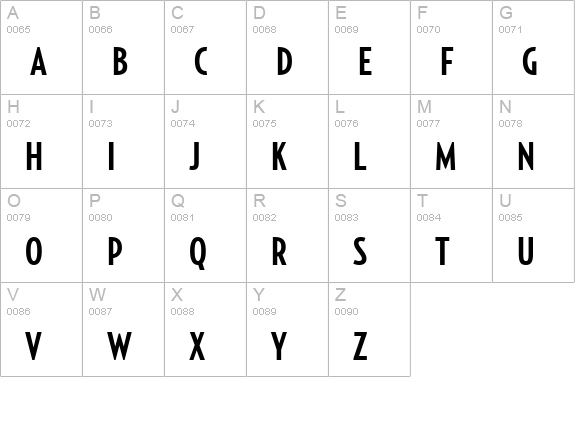
RelayComp-Bold Font Details
RelayComp-Bold is a strong, high-contrast variant in the RelayComp typeface family \xE2\x80\x94 well suited to headlines, attention-grabbing titles, and strong calls-to-action.
RelayComp-Bold font is a captivating and bold typeface that commands attention with its strong and confident letterforms. Designed with precision and elegance, this font exudes a modern and dynamic vibe that is perfect for various design projects. With its clean lines and sharp edges, RelayComp-Bold adds a touch of professionalism and sophistication to any text or headline. Its bold weight ensures that your message stands out and leaves a lasting impression on your audience. What makes RelayComp-Bold even more enticing is that it is freely available to download at FontsMarket.com. This means that you can easily access this exceptional font without any hassle or cost. Whether you are a professional designer or an enthusiastic hobbyist, you can now enhance your creative projects with this remarkable font, without breaking the bank. So why wait? Download RelayComp-Bold today from FontsMarket.com and unlock the potential to create visually stunning designs that captivate and inspire. Don't miss out on this incredible opportunity to elevate your typography game with a font that is both impactful and free.